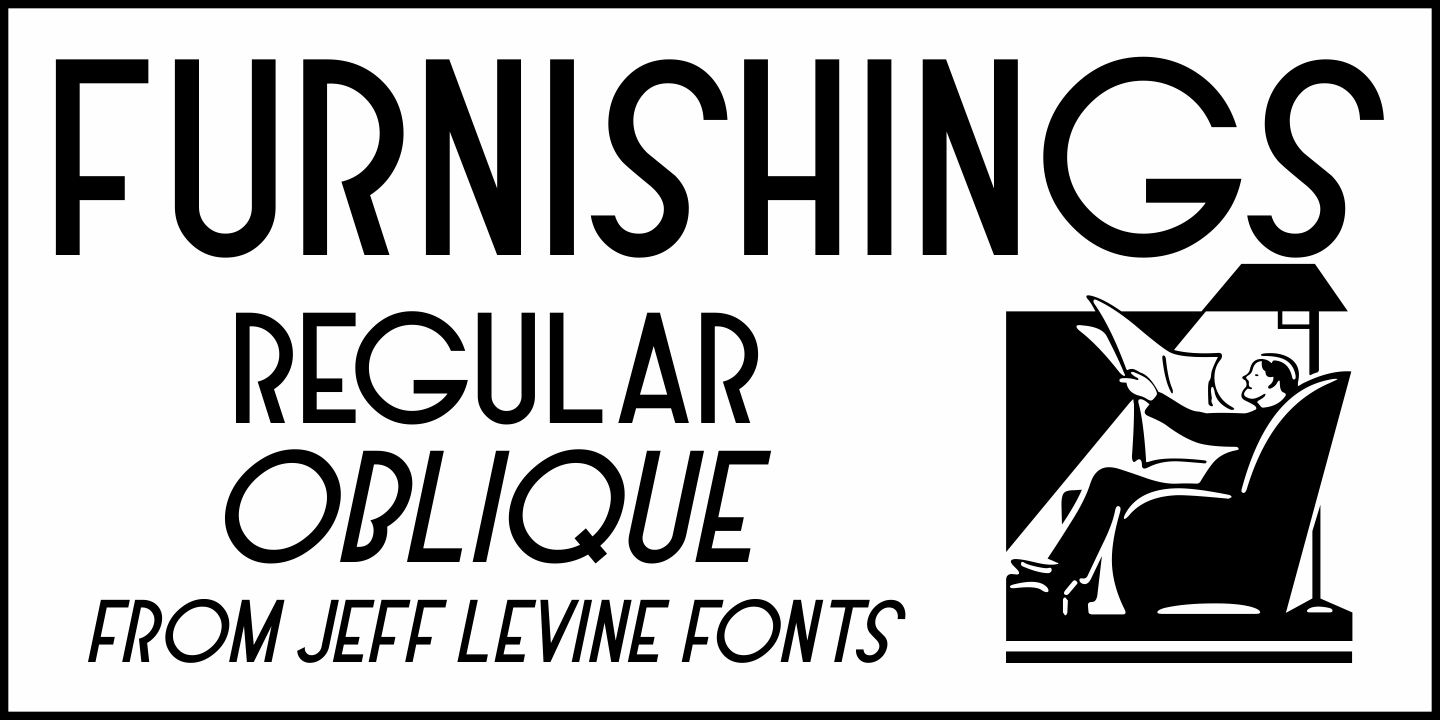
FURNISHINGS JNL
Designed by Jeff Levine, Furnishings JNL is an art deco font family. This typeface has two styles and was published by Jeff Levine Fonts.
Sometimes, ‘overdistancing’ - looking past the obvious - can reveal things to a type designer that sparks a creative moment.
While watching the Three Stooges 1937 comedy short “3 Dumb Clucks”, a location shot revealed a sign saying “Distributors for Bigelow Weavers” in an Art Deco sans serif design.
This prompted the design of the digital typeface of that lettering called Furnishings JNL, which is available in both regular and oblique versions.
For those not familiar, Bigelow is a manufacturer of carpets.